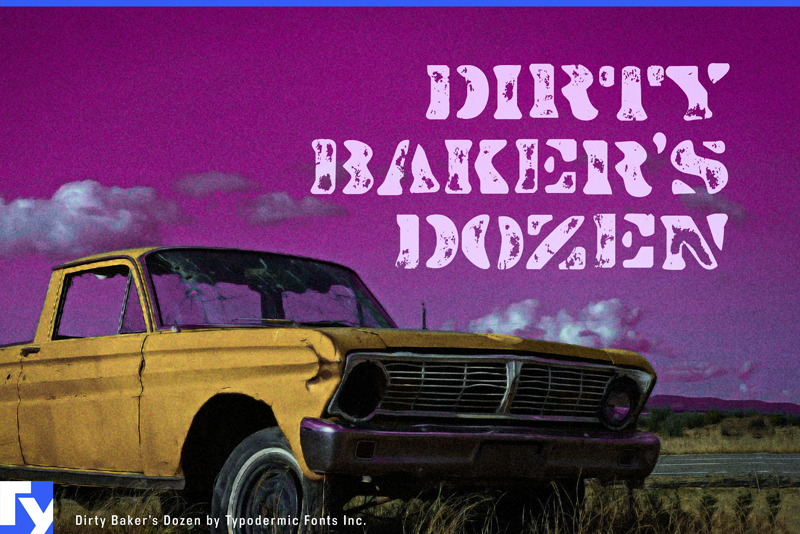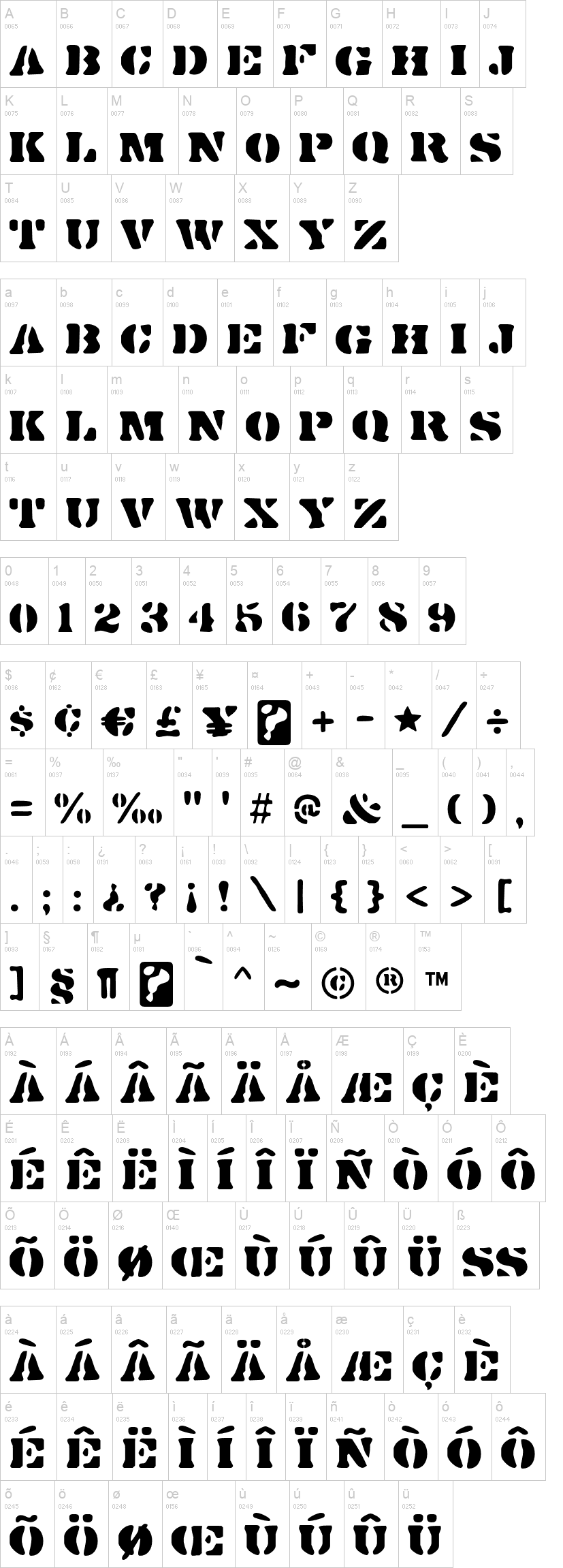
Note of the authorDirty Bakers Dozen is a raunchy headline typeface created with an old stencil. When utilizing the Scorch or Spraypaint styles in an OpenType-aware application, common letter pairs will be substituted by unique pairs for a more realistic, grimy effect. Most Latin-based European writing systems are supported, including the following languages. Afaan Oromo, Afar, Afrikaans, Albanian, Alsatian, Aromanian, Aymara, Bashkir (Latin), Basque, Belarusian (Latin), Bemba, Bikol, Bosnian, Breton, Cape Verdean, Creole, Catalan, Cebuano, Chamorro, Chavacano, Chichewa, Crimean Tatar (Latin), Croatian, Czech, Danish, Dawan, Dholuo, Dutch, English, Estonian, Faroese, Fijian, Filipino, Finnish, French, Frisian, Friulian, Gagauz (Latin), Galician, Ganda, Genoese, German, Greenlandic, Guadeloupean Creole, Haitian Creole, Hawaiian, Hiligaynon, Hungarian, Icelandic, Ilocano, Indonesian, Irish, Italian, Jamaican, Kaqchikel, Karakalpak (Latin), Kashubian, Kikongo, Kinyarwanda, Kirundi, Kurdish (Latin), Latvian, Lithuanian, Lombard, Low Saxon, Luxembourgish, Maasai, Makhuwa, Malay, Maltese, Māori, Moldovan, Montenegrin, Ndebele, Neapolitan, Norwegian, Novial, Occitan, Ossetian (Latin), Papiamento, Piedmontese, Polish, Portuguese, Quechua, Rarotongan, Romanian, Romansh, Sami, Sango, Saramaccan, Sardinian, Scottish Gaelic, Serbian (Latin), Shona, Sicilian, Silesian, Slovak, Slovenian, Somali, Sorbian, Sotho, Spanish, Swahili, Swazi, Swedish, Tagalog, Tahitian, Tetum, Tongan, Tshiluba, Tsonga, Tswana, Tumbuka, Turkish, Turkmen (Latin), Tuvaluan, Uzbek (Latin), Venetian, Vepsian, Võro, Walloon, Waray-Waray, Wayuu, Welsh, Wolof, Xhosa, Yapese, Zapotec Zulu and Zuni.